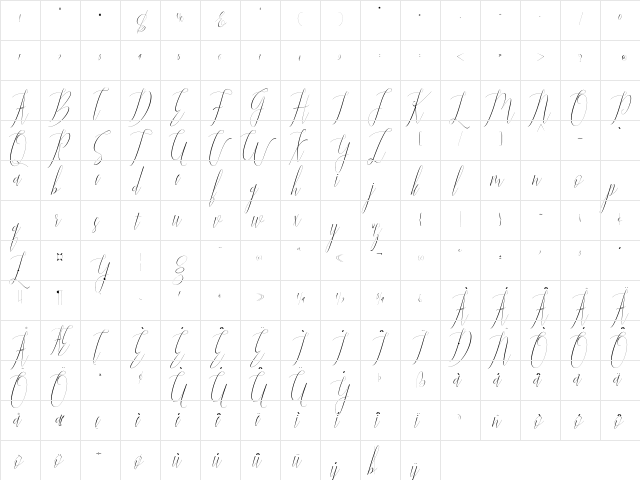
Jelisa Regular
Design Context for Jelisa Typeface
Jelisa is a composed and adaptable typeface that performs quietly and consistently across a wide range of design contexts.